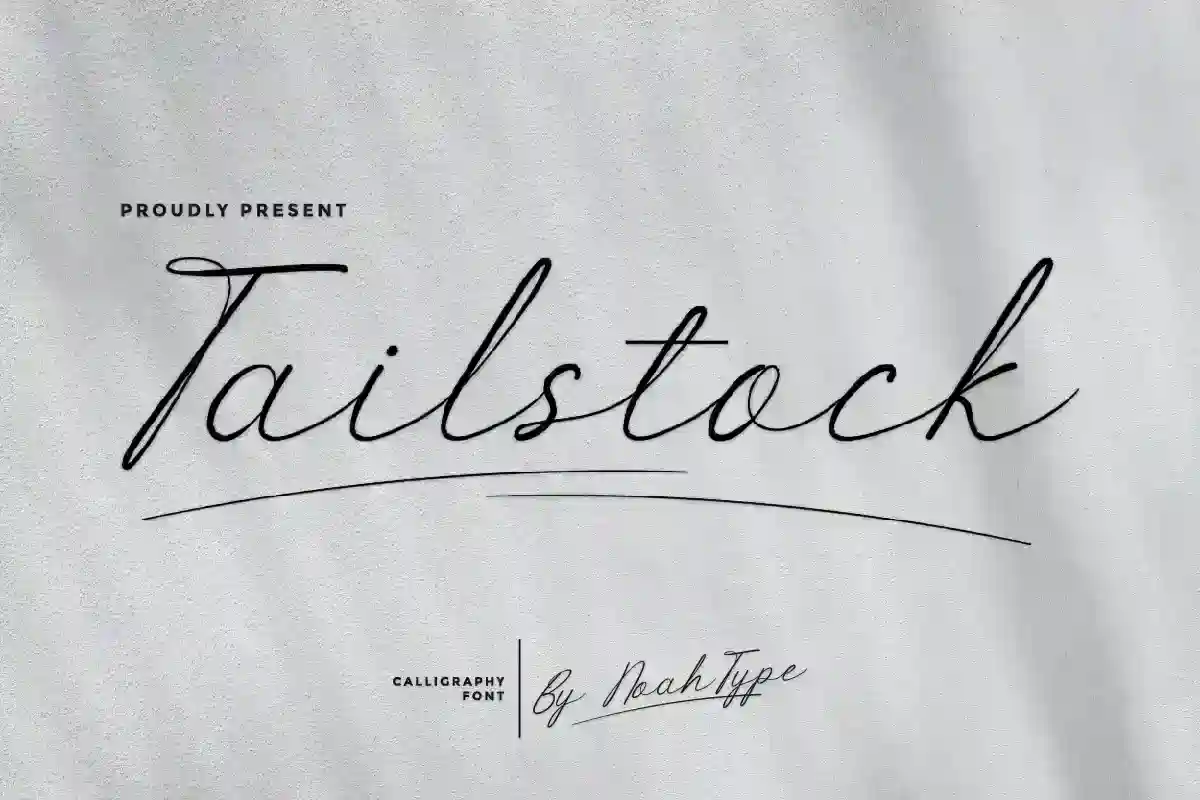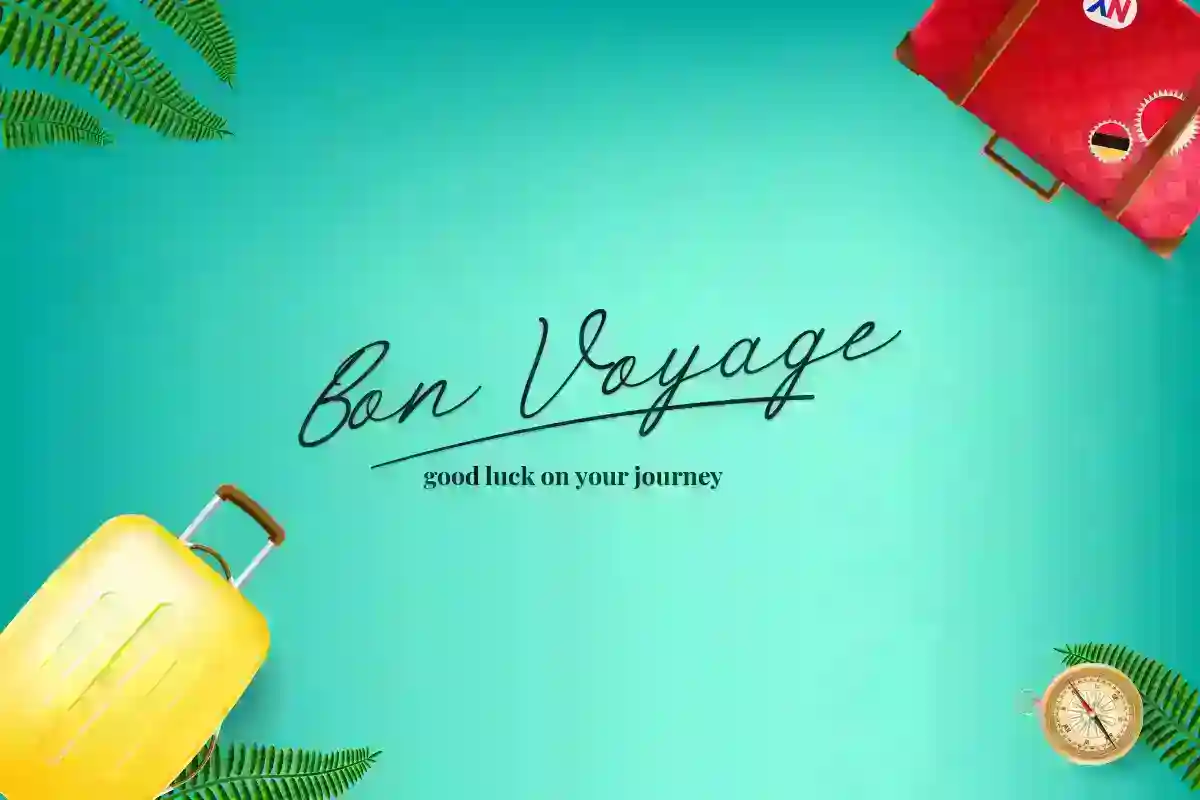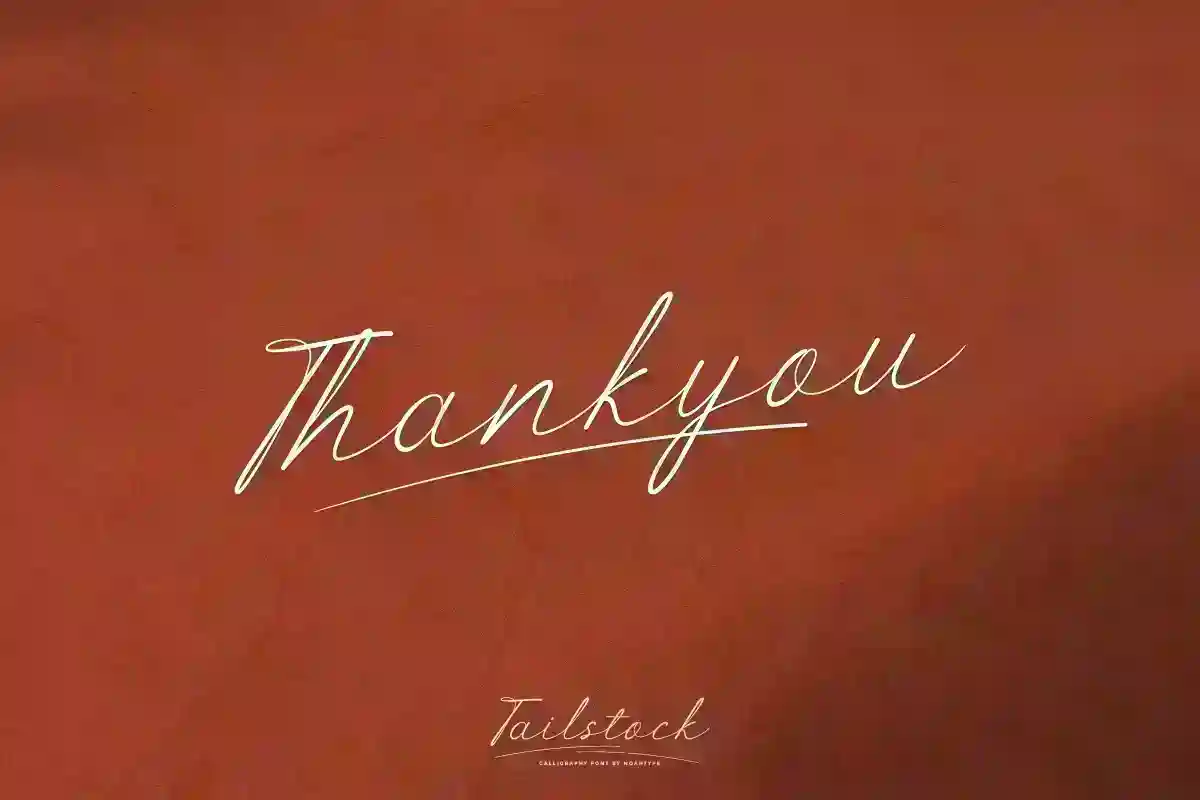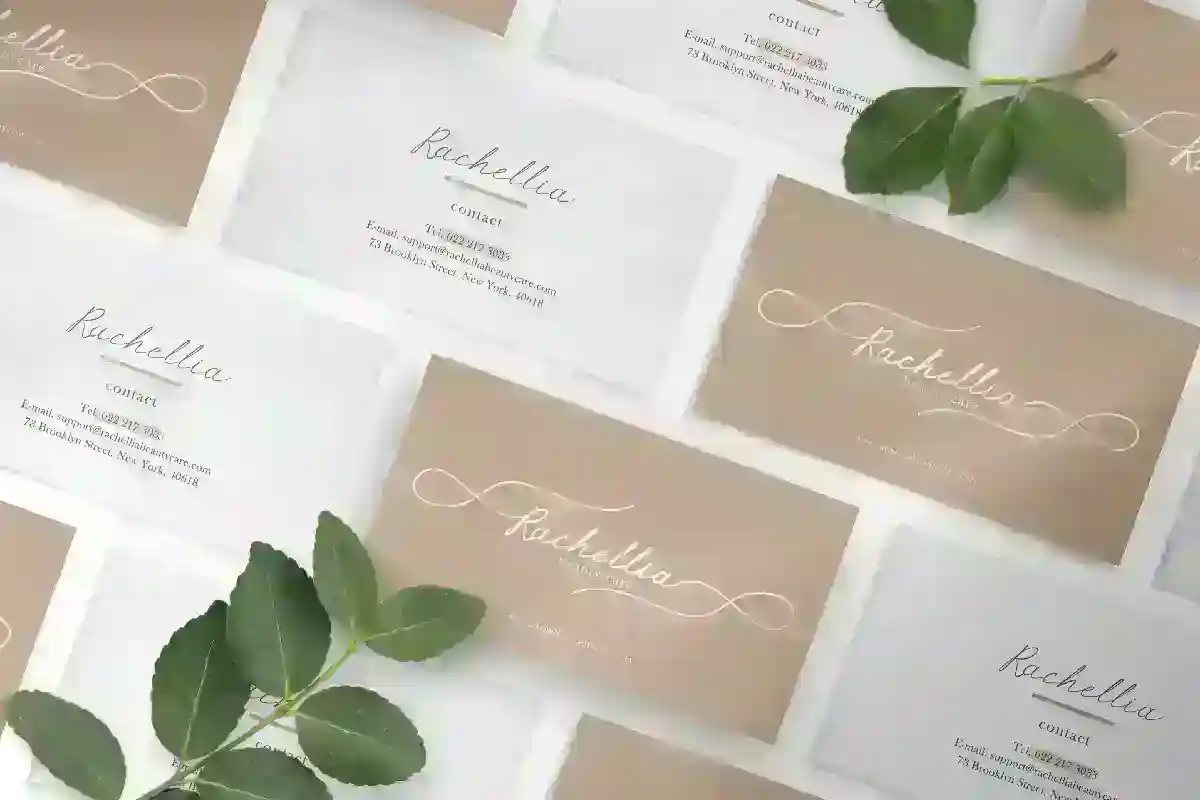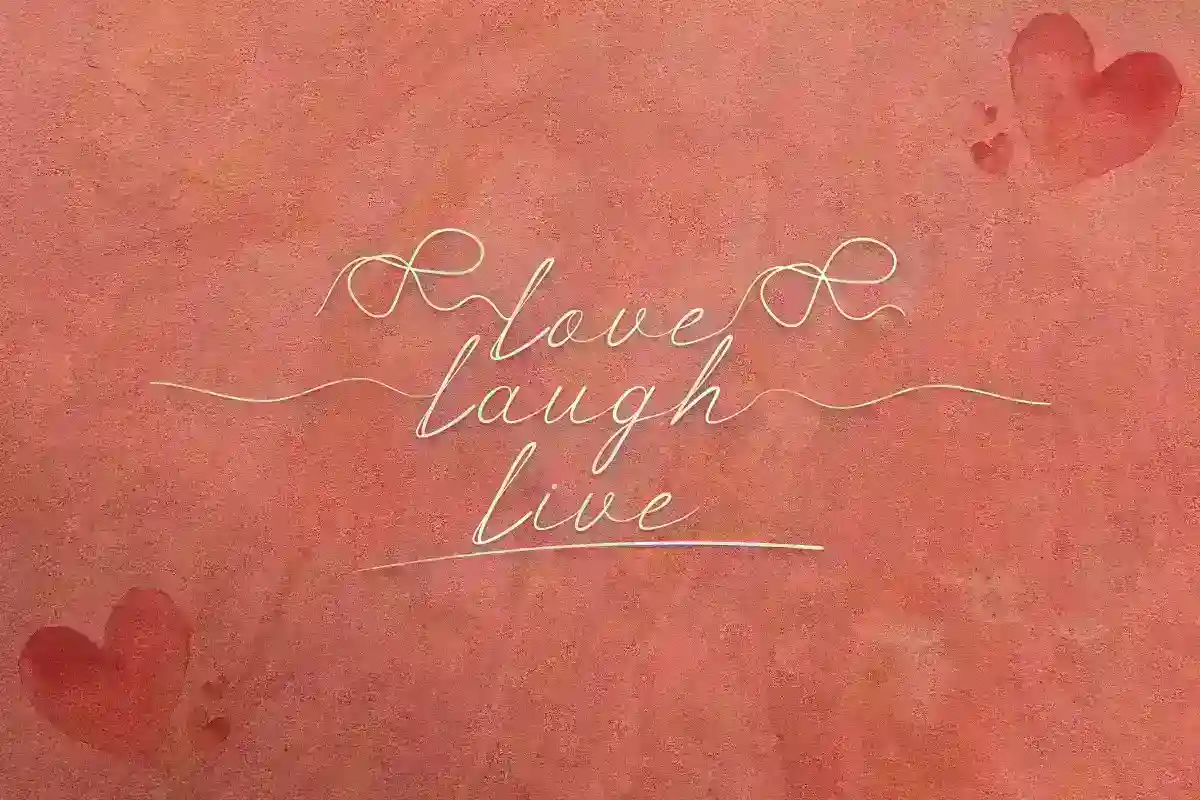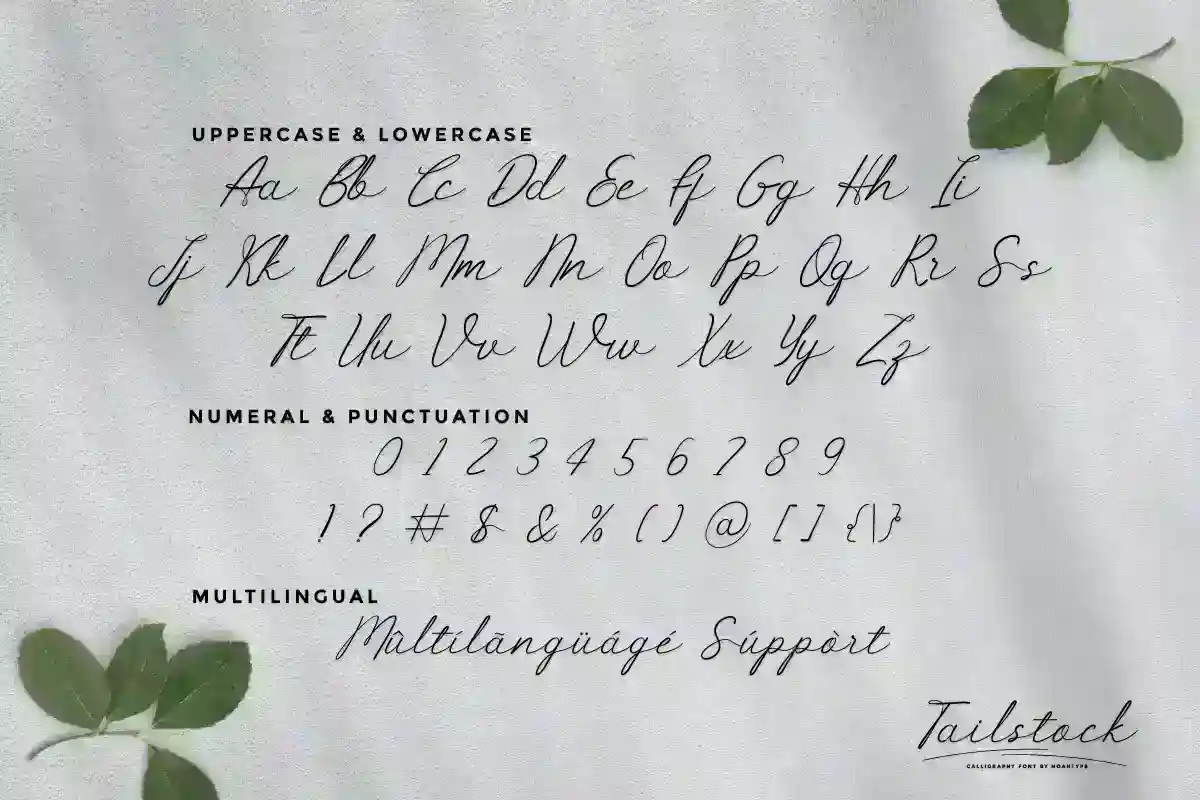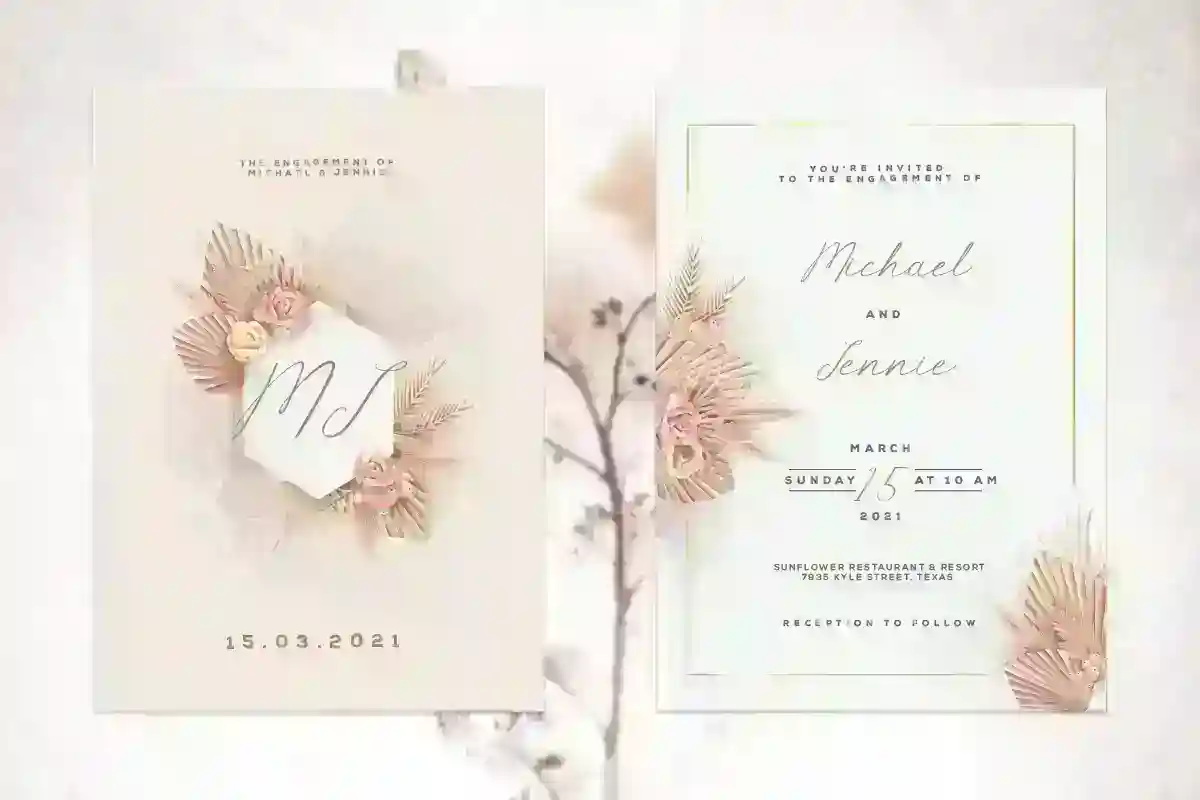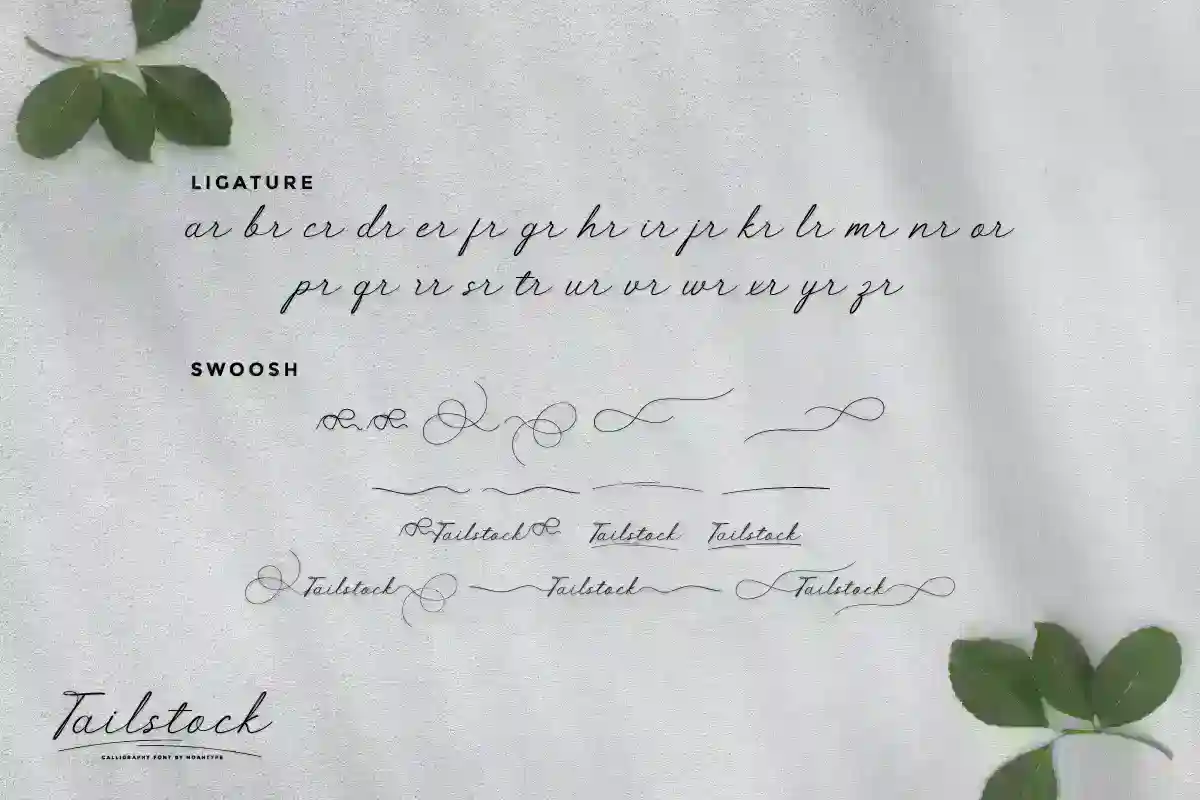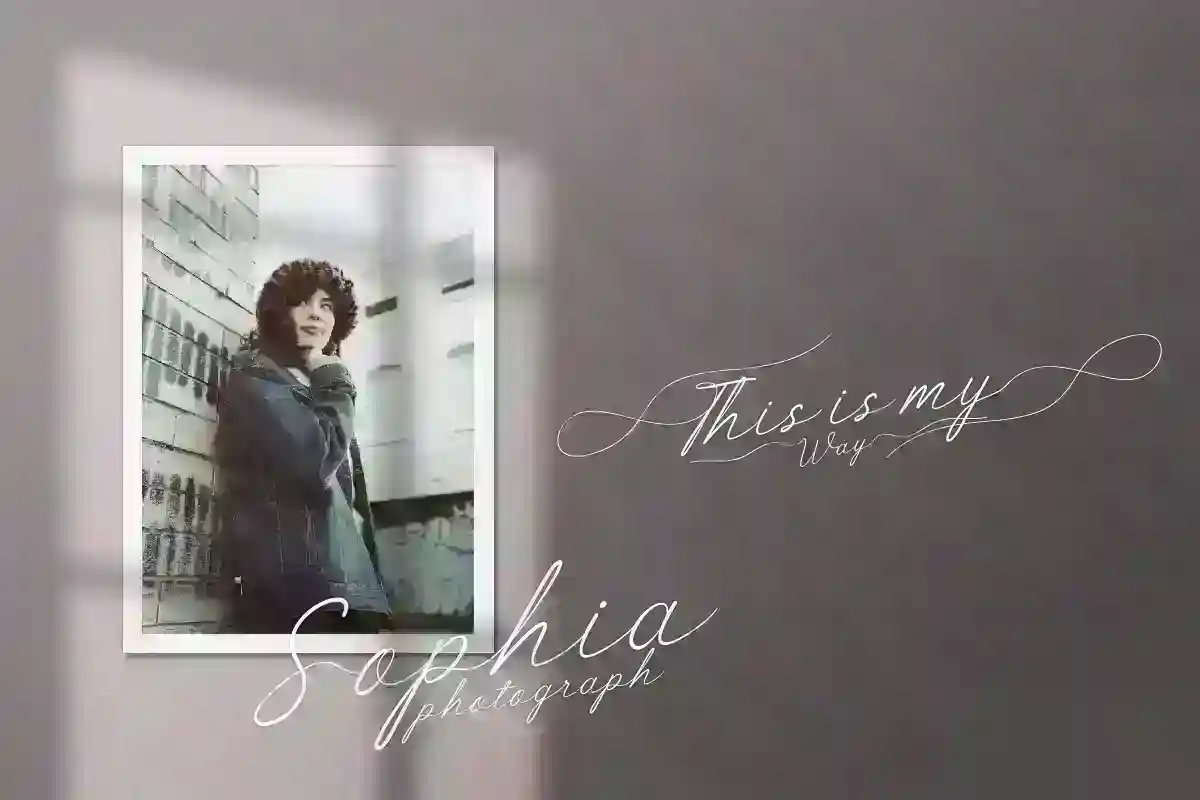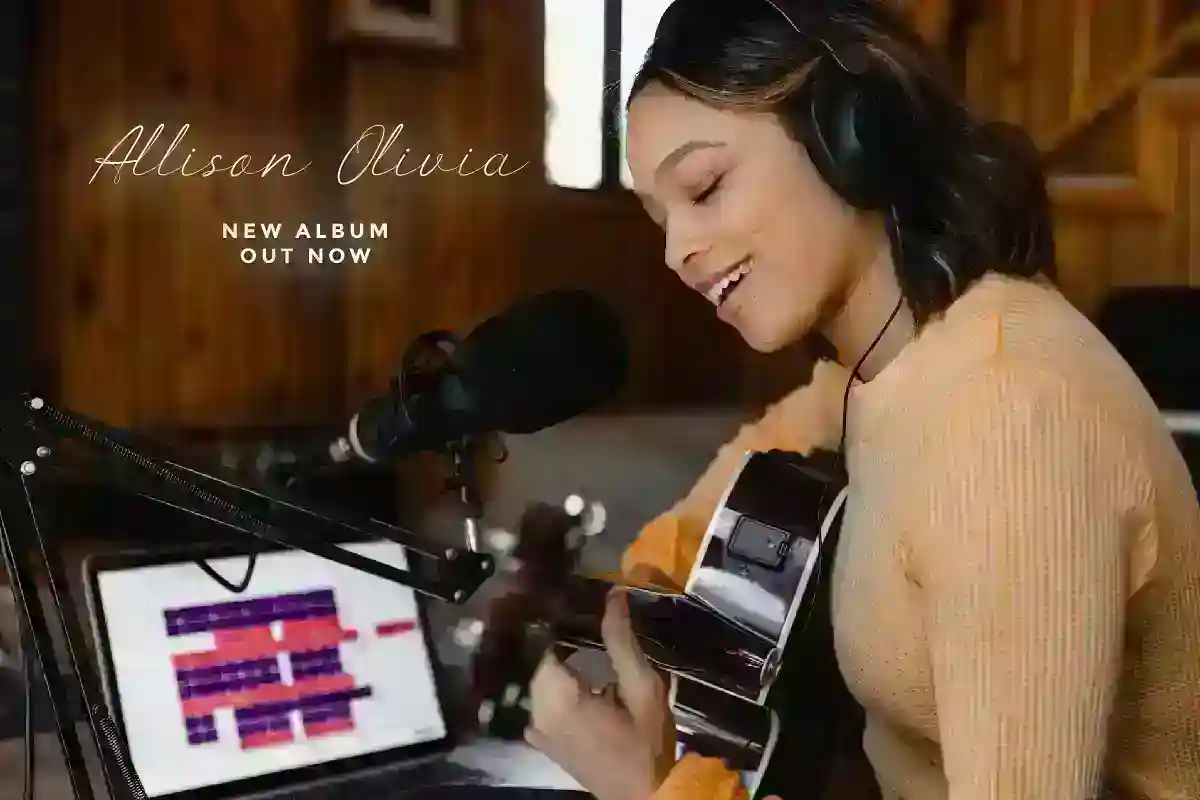
Tailstock Font
Tailstock Font is a beautiful signature handwriting font with modern characters inspired by classic hand lettering and minimal branding designs. This font is crafted carefully in every its single scratch, created to look as close to a natural handwritten script so that it can create the perfect combination on each glyph. When we make this font, we really want to create a touch that is so free-flowing that it gives a natural impression on its use later. For example, if you want letter ‘s’ that has a flow sketch with letter ‘t’, you can find it in ‘st’ ligature glyph (just type in the text form below for trying). This awesome script is for anyone who are needing of elegance and stylish for their designs.
Tailstock Font includes full set of Uppercase and Lowercase Basic Characters, Numerals and Punctuation. Also it contains ligatures and alternates characters to perfectly make natural handwriting look that add more beautiful and aesthetic fonts to perfect your extraordinary project. Tailstock will be awesome for wedding, engagement, branding, invitations, florist, hair stylish, makeup artist, event organizer, movie, music, festival, promotions, social media etc
Tailstock will be great for branding, logotype, social media post, poster, invitation, watermark, lettering and many more